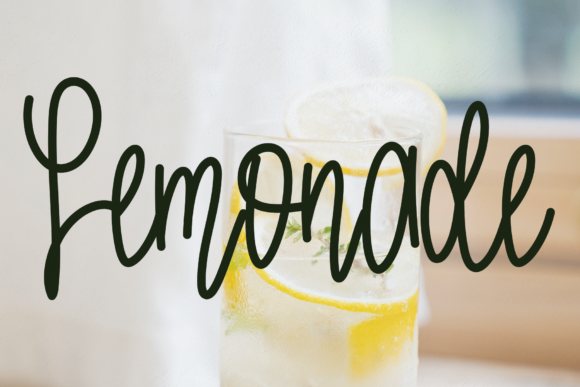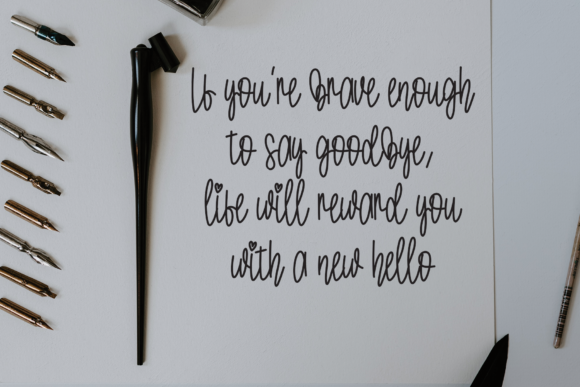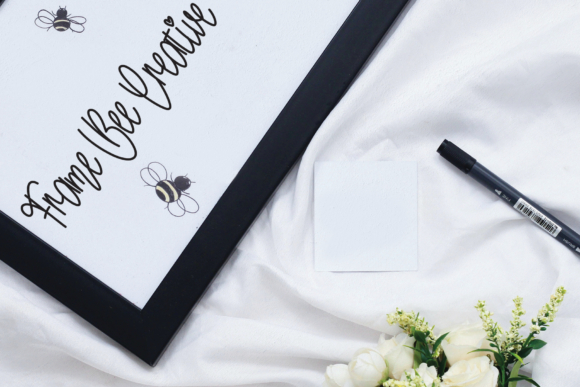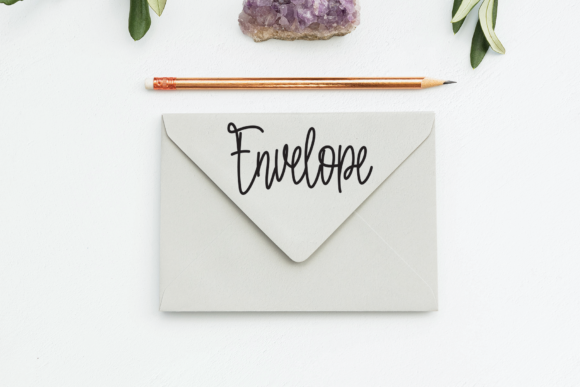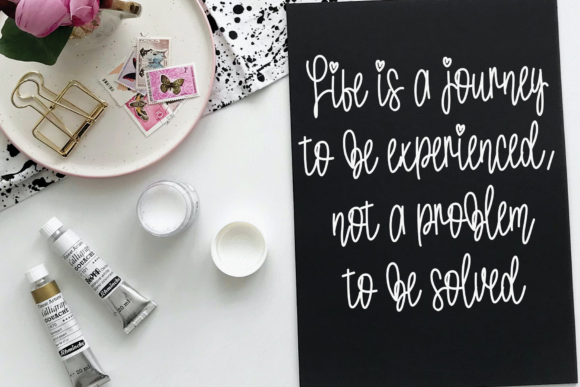
Lemonade Font
About Lemonade Font
Lemonade is a cool, asymmetric and casual handwritten font. Its informal style will make this font a go-to choice for each of the creations that require a relaxed touch.